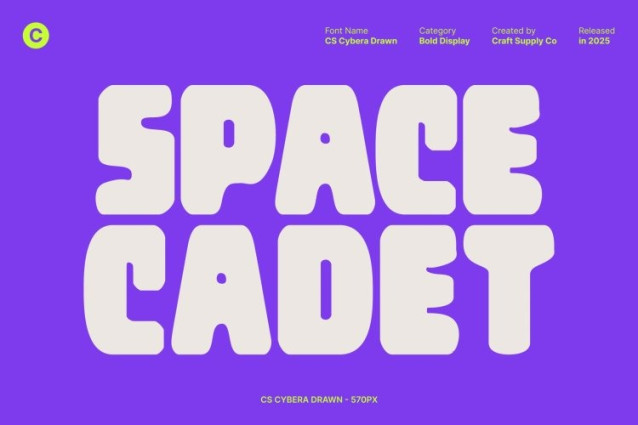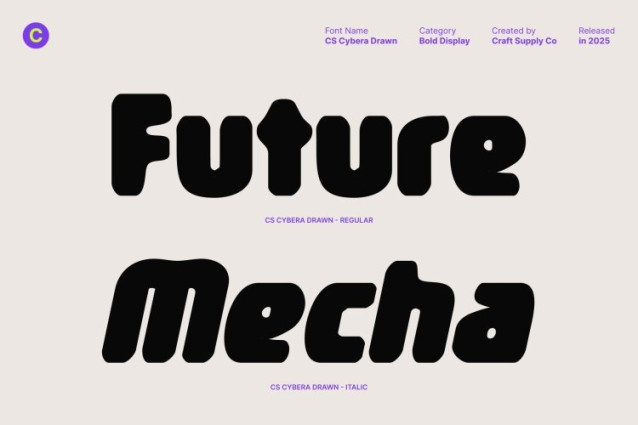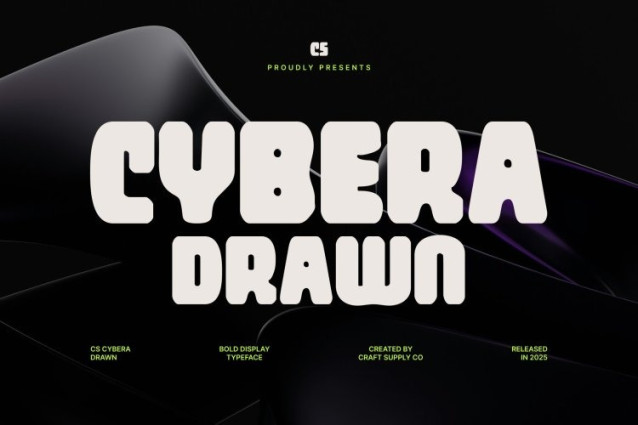
CS Cybera Drawn Font
CS Cybera Drawn Font This is a bold sans serif display font created to deliver strong visual impact. Its solid, confident letterforms project modern authority and clarity, making it ideal for headlines, branding, and statement-driven designs. The bold construction ensures your message stands out instantly, even in busy or competitive visual spaces.
Rounded Shapes with Hand-Drawn Character
The rounded structure softens the font’s bold presence, creating a friendly and contemporary feel. Enhanced with a hand-drawn texture, this font gains a natural and unique shape that feels more expressive and human. These subtle drawn details add warmth and individuality, preventing the font from feeling overly rigid or mechanical.
Modern Energy with Natural Texture
Built on clean geometry and smooth proportions, this font balances modern precision with organic charm. The drawn effect introduces slight imperfections that give the font character and movement, making it feel alive and dynamic. This combination results in typography that feels fresh, approachable, and full of modern energy.
Perfect for Impactful Branding and Creative Design
Ideal for logos, posters, promotional materials, and bold visual identities, this font excels in projects that require confidence and originality. Its rounded forms, contemporary style, and natural hand-drawn texture make it a powerful choice for designers seeking a modern display font with personality, warmth, and standout appeal.